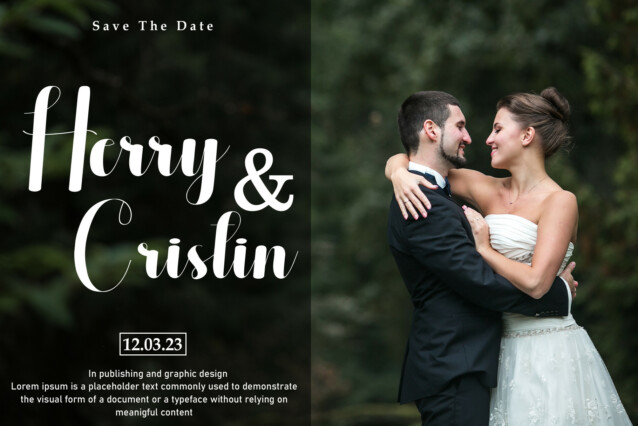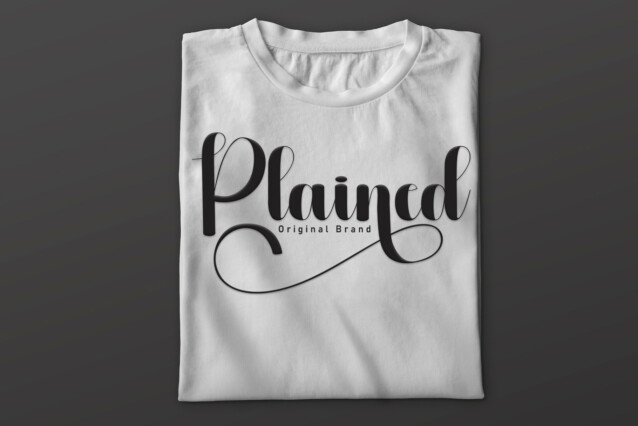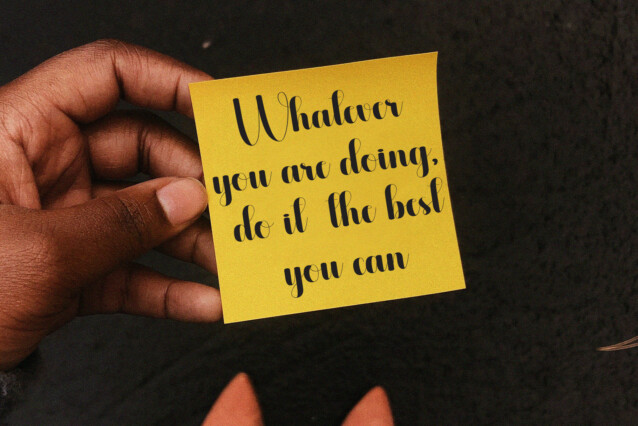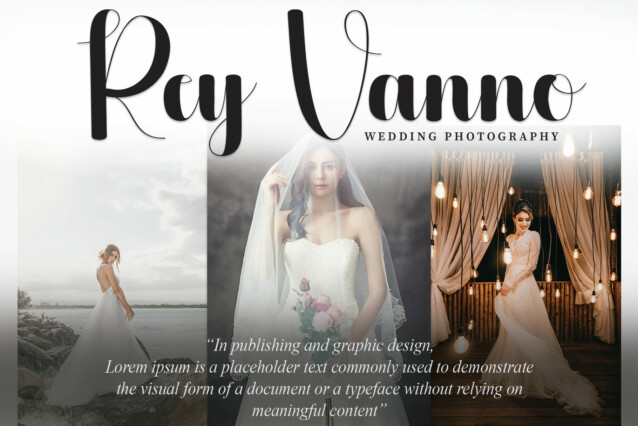
Barbeque Script Typeface
Barbeque Script Typeface is a stylish and incredibly elegant script font. It looks stunning on wedding invitations, thank you cards, quotes, greeting cards, logos, business cards and every other design which needs a handwritten touch.